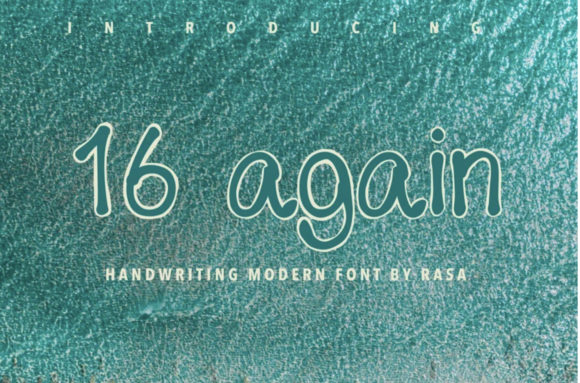
Introducing the ravishing 16 Again Font, a captivating script that will ignite your creativity. Crafted with meticulous precision by Rasa, this font exudes an irresistible charm that will leave you spellbound.
Indulge in the enchanting world of 16 Again, where each letter flows seamlessly like a graceful dance. Its subtle imperfections create a touch of authenticity that will add a personal touch to your designs.
Whether you're crafting heartfelt chalkboard quotes or designing compelling teaching materials, 16 Again is the perfect choice. Its versatility knows no bounds, allowing you to infuse your projects with a touch of whimsy and authenticity.
Step into a realm of creative possibilities with 16 Again, the font that will transform your designs into masterpieces. Its ability to mimic handwritten elegance will captivate your audience and leave a lasting impression.
Don't settle for ordinary fonts. Embrace the magic of 16 Again and watch as your designs blossom into works of art. Experience the joy of creating with a font that speaks to your heart and ignites your imagination.